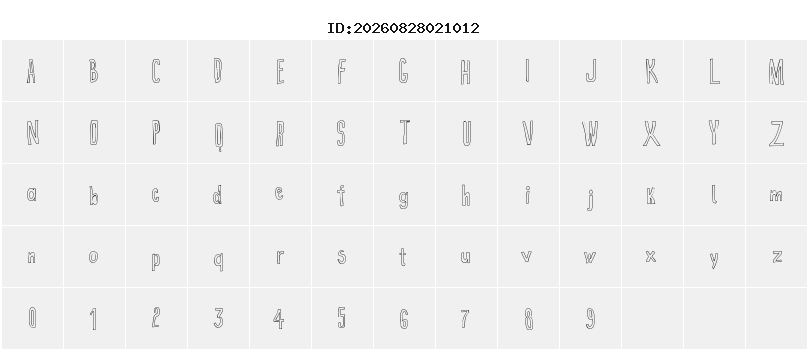
True 2D Outline Preview
• Font Name: True 2D Outline
• Full Font Name: True 2D Outline
• Designer: Galdino Otten
About True 2D Outline.ttf
True 2D Outline.ttf is a modern, elegant sans-serif font designed for ultimate readability and visual harmony. Perfect for branding, headlines, web design, and print materials.